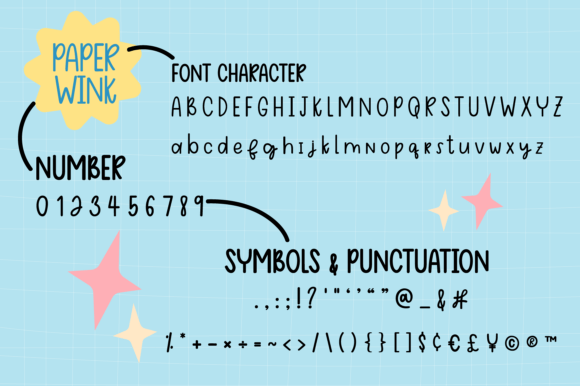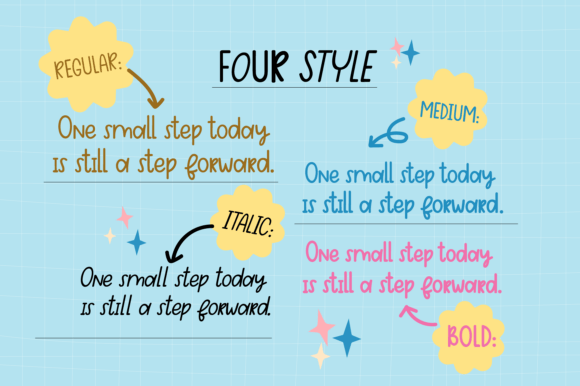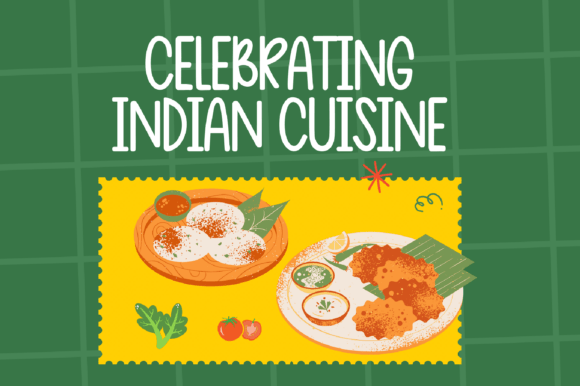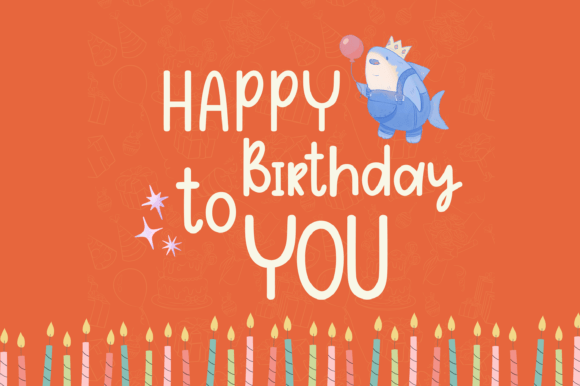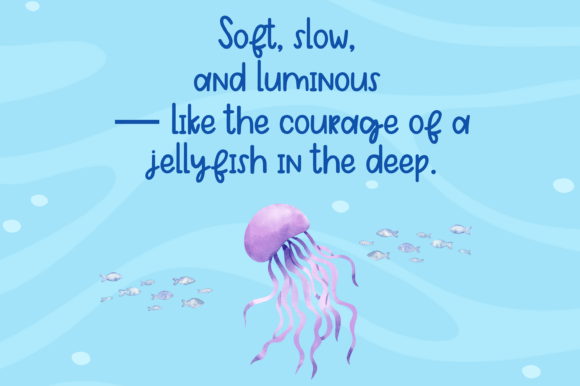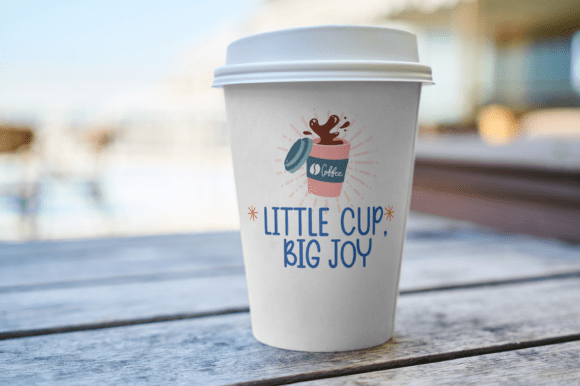
Introduction to Paper Wink Font
Have you ever found yourself scribbling notes in your favorite notebook, watching the ink dance across the page as you capture your thoughts and ideas? For many of us, this simple, joyful act sparks a sense of creativity and freedom. And now, with the Paper Wink Font, you can recapture that magic in all your digital projects!
This lively, handwritten font is designed to transport you back to the carefree days of childhood, when a scribbled note or doodle could bring a smile to your face. With its tall, eccentric characters and dynamic buoyancy, the Paper Wink Font is an ideal design resource for anyone looking to add a touch of whimsy and personality to their creative projects.
Key Features of Paper Wink Font
- Unique, hand-drawn design with a high-quality aesthetic, perfect for creative projects.
- High-resolution design, with a resolution of 300 DPI, suitable for print and digital applications.
- Perfect for use in creative projects, such as invitations, greeting cards, and other paper crafts.
Honest Review: Paper Wink Font
I recently had the chance to play around with the Paper Wink Font, and I must say, it’s a great addition to any designer’s toolkit. ✨
This font is perfect for a creative project where you want to add a touch of elegance and sophistication. It’s a high-quality font with a transparent background, making it ideal for overlaying on images or videos.
Some of the key features of the Paper Wink Font include:
- Transparent background for seamless overlay
However, I do have a few limitations to mention. ⚠️
- The font may not be suitable for large block of text, as it can be quite ornate
- The transparent background can sometimes cause issues with readability
Overall, I’m impressed with the Paper Wink Font. It’s a great design resource for any creative project, and the free download is a bonus. I’d definitely recommend it to fellow designers looking for a high-quality font to add some flair to their work.
Tips for Getting the Most Out of Paper Wink Font
For the best results, use Paper Wink Font in conjunction with other design resources, such as graphics and images. Experiment with different font sizes, colors, and styles to create unique and eye-catching designs. You can also use the font’s transparent background feature to create layered designs.
Paper Wink Font is a versatile font that can be used in a variety of creative projects, including:
- Print design and marketing materials